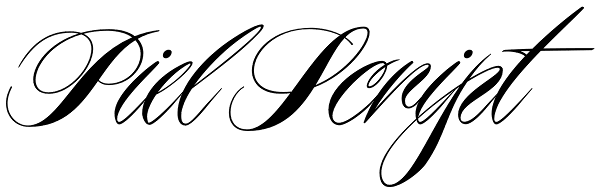
Piel Script
Over the past couple of years I received quite a number of unusual and surprising requests to modify my type designs to suit projects of personal nature, but none top the ones that asked me to typeset and modify tattoos using Burgues Script or...
Piel Script Redux
Piel Script